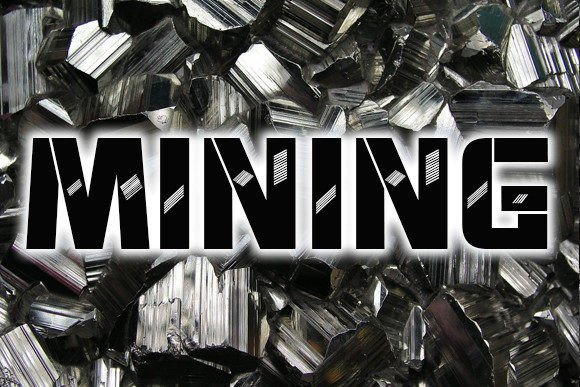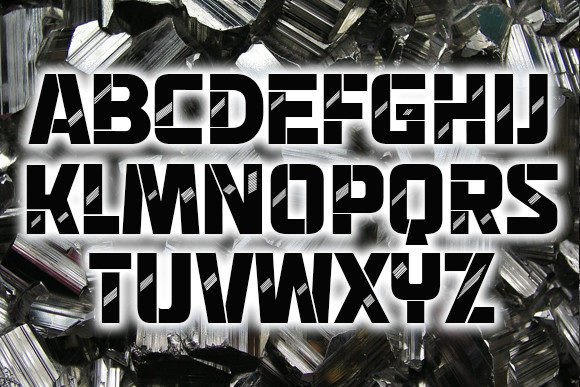
Coal Font: The Ultimate Decor Typeface for Your Designs
Are you a designer or crafter looking for a unique and versatile font to elevate your projects? Look no further than Coal Font, an awesome decor typeface that will fit any of your designs. In this article, we’ll explore the features and benefits of Coal Font, and show you how to make the most of this incredible font in your work.
What is Coal Font?
Coal Font is a decorative typeface that is perfect for adding a touch of industrial chic to your designs. With its rugged, distressed look, Coal Font is ideal for creating bold and eye-catching posters, flyers, t-shirts, and more. Whether you’re working on a branding project, a marketing campaign, or simply a personal craft, Coal Font is a versatile and reliable choice.
Key Features of Coal Font
- Unique and distinctive look: Coal Font has a one-of-a-kind design that will set your projects apart from the crowd.
- Highly legible: Despite its decorative nature, Coal Font is surprisingly easy to read, making it perfect for use in a variety of applications.
- Extensive character set: Coal Font includes a wide range of characters, ensuring that you have everything you need to create professional-looking text.
Using Coal Font in Your Designs
Coal Font is an incredibly versatile font that can be used in a wide range of design applications. Here are just a few ideas to get you started:
- Posters: Create bold and eye-catching posters with Coal Font, perfect for advertising events, promoting products, or simply adding a decorative touch to your walls.
- Flyers: Use Coal Font to create striking flyers that will grab attention and communicate your message effectively.
- T-shirts: Add a touch of industrial chic to your t-shirt designs with Coal Font, perfect for creating unique and stylish apparel.
- Branding and packaging: Use Coal Font to create a distinctive and memorable brand identity that will set your business apart.
Tips and Tricks for Working with Coal Font
To get the most out of Coal Font, here are a few tips and tricks to keep in mind:
- Experiment with different sizes: Coal Font looks great in a variety of sizes, from small and subtle to large and bold.
- Play with color: Coal Font looks great in a range of colors, from deep blacks and grays to bright and bold hues.
- Combine with other fonts: Coal Font pairs well with a range of other fonts, so don’t be afraid to experiment and find the perfect combination for your design.
Coal Font is an awesome decor typeface that is perfect for designers and crafters looking to add a touch of industrial chic to their projects. With its unique and distinctive look, highly legible design, and extensive character set, Coal Font is a versatile and reliable choice for a wide range of applications. Whether you’re working on a poster, flyer, t-shirt, or branding project, Coal Font is sure to impress. So why not give it a try and see the difference it can make in your designs?